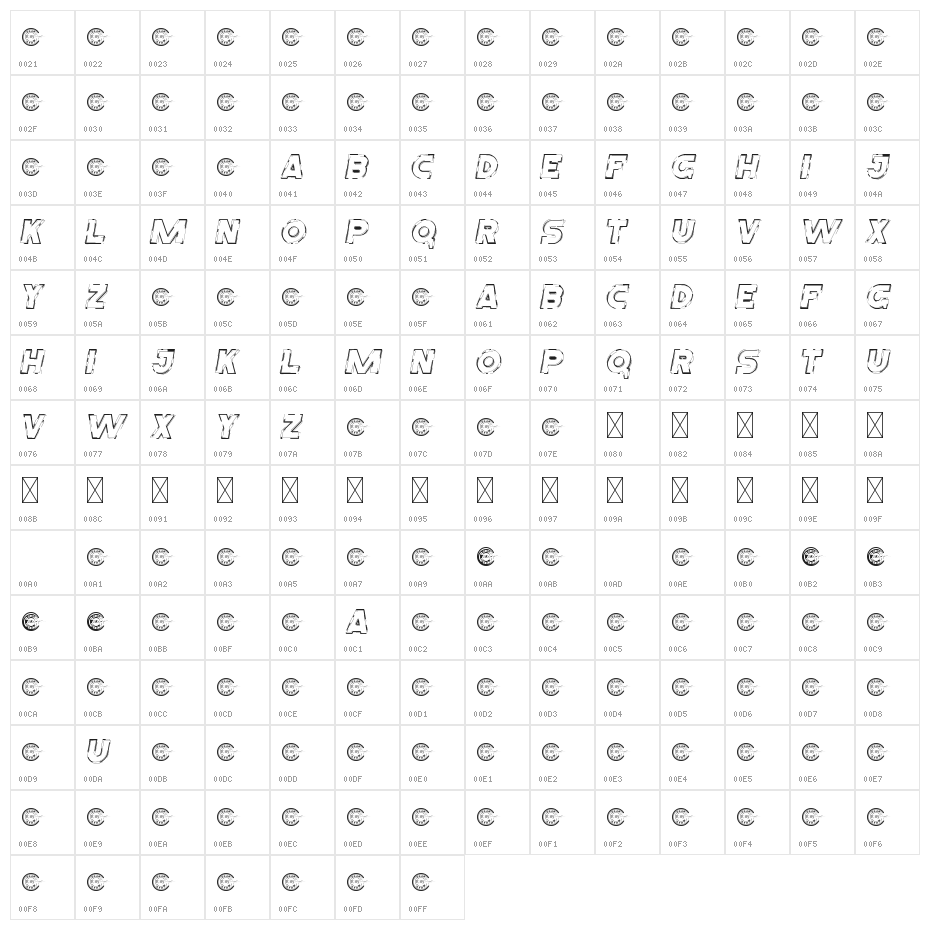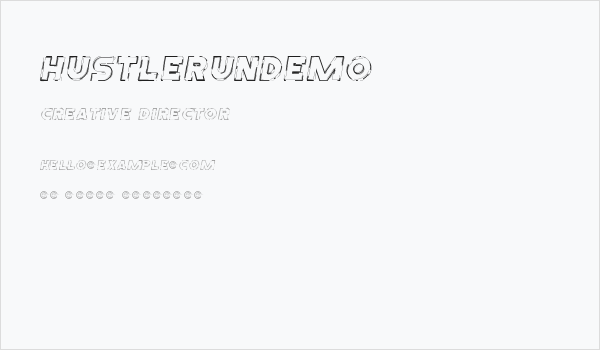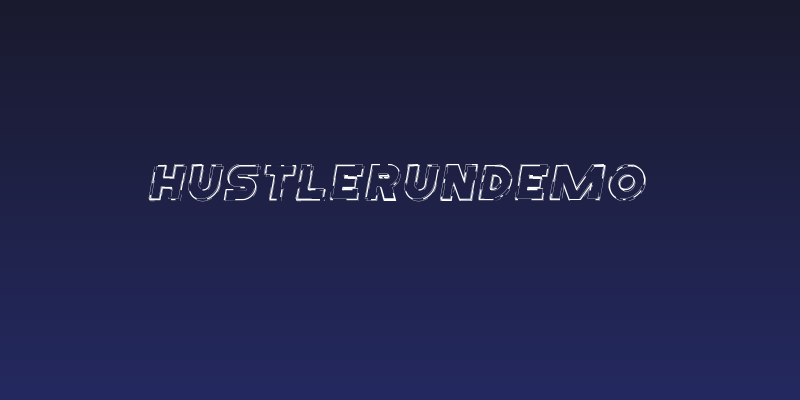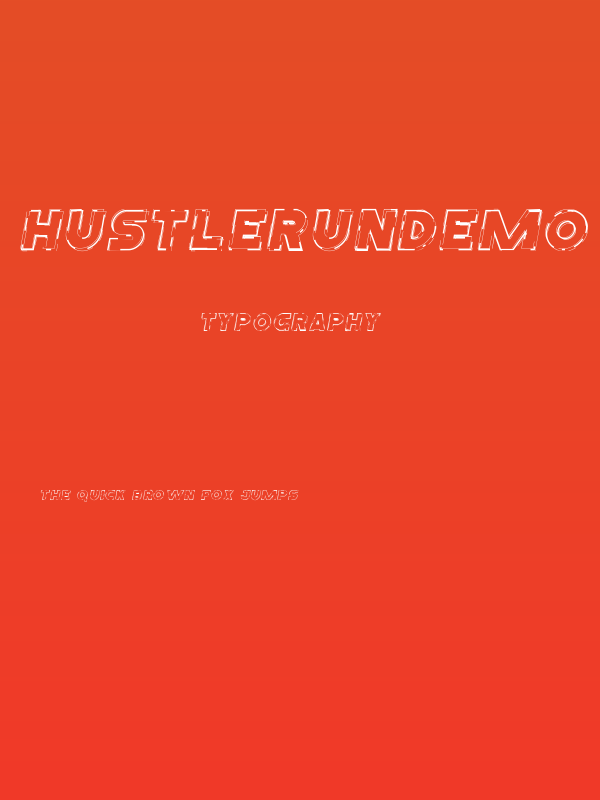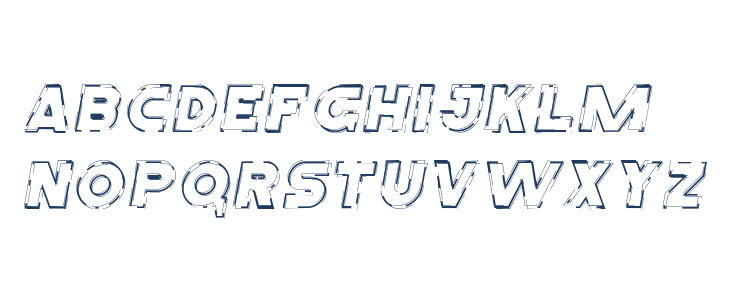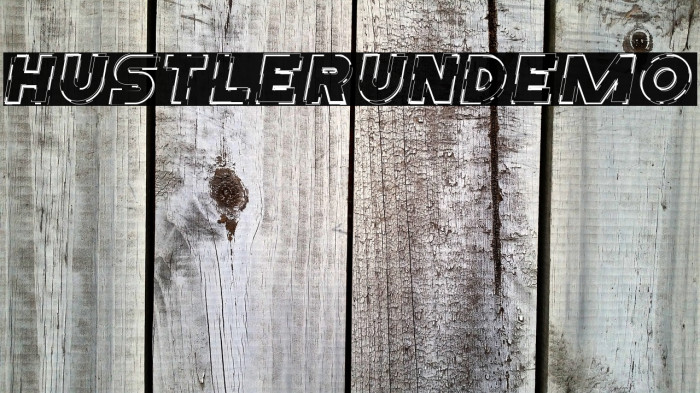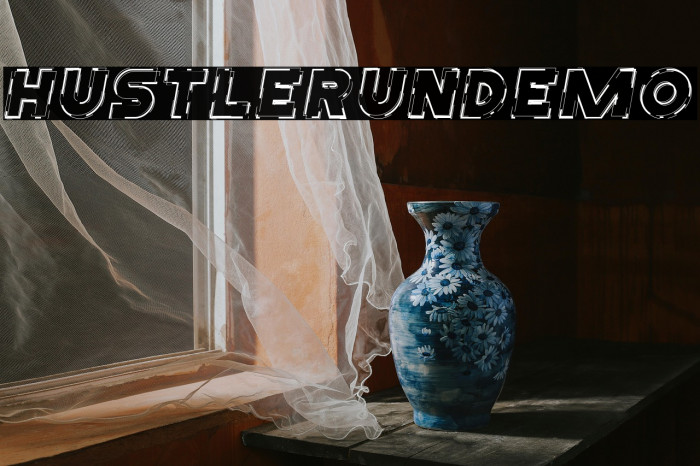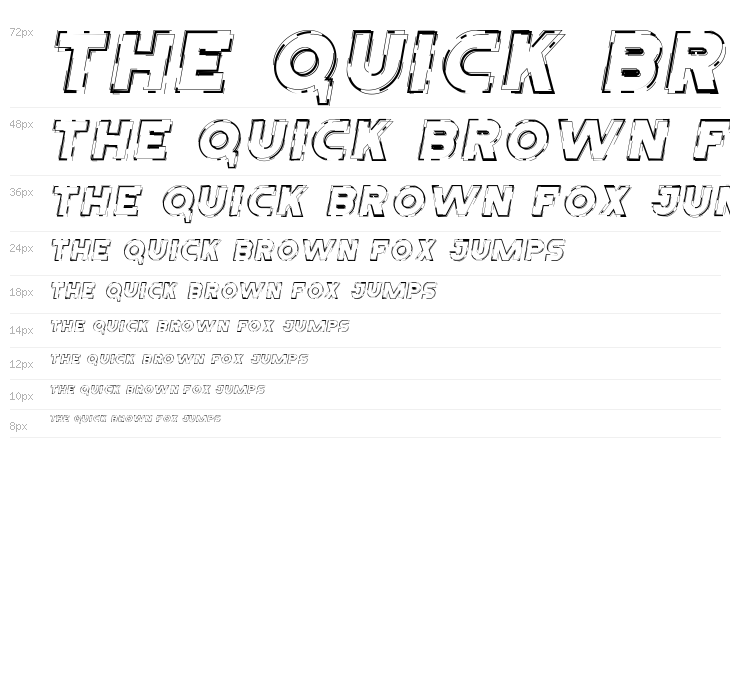
HustleRunDemo Font
HustleRunDemo Description
A stylized, outlined sans-serif font with a modern, dynamic appearance, featuring diagonal lines and a sense of motion.
| Overall Style | Modern, Dynamic |
| Use Case | Headlines, Logos, Branding, Digital Media |